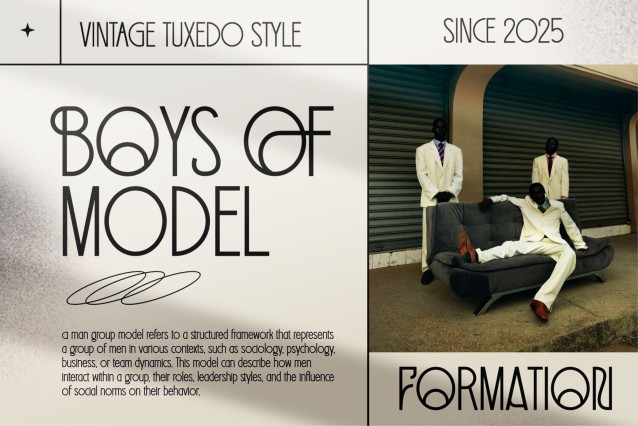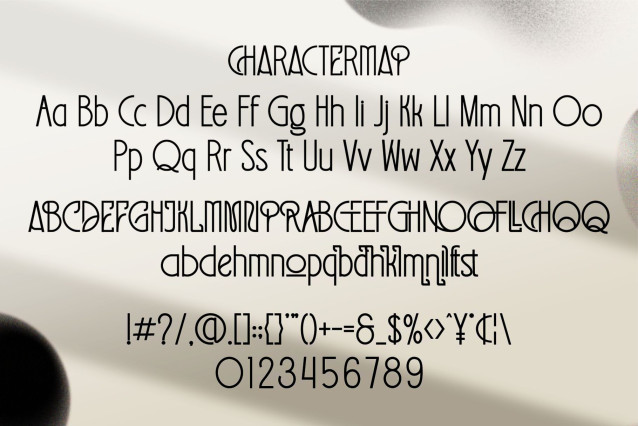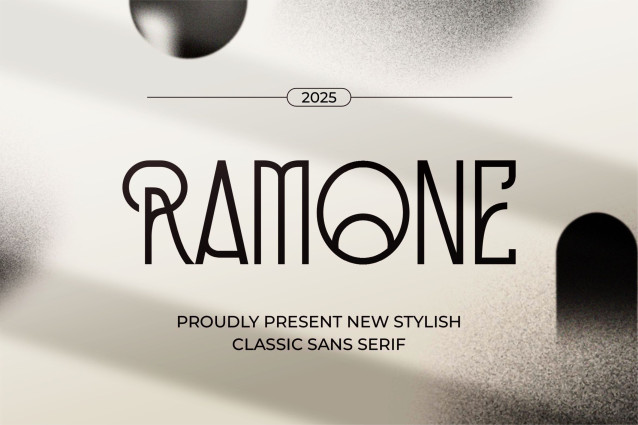
Ramone Sans Font
Ramone Sans Font a sans serif font with elegant and classic feels. It will be perfectly used for Branding, Logo Design, Lettering, Logotype, Clothing, Poster, magazine, packaging, posters, shopping bags, t-shirts, book covers, photography, special events and other design project